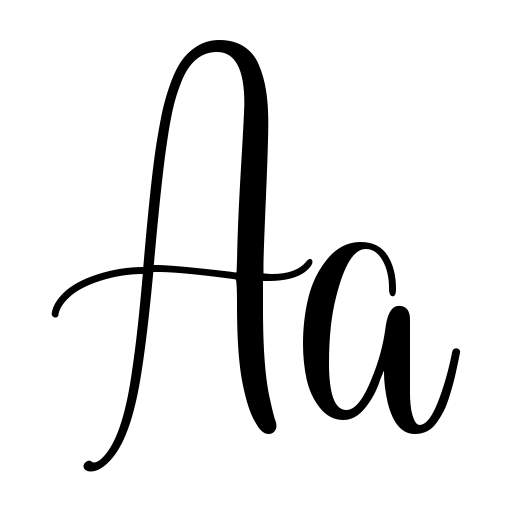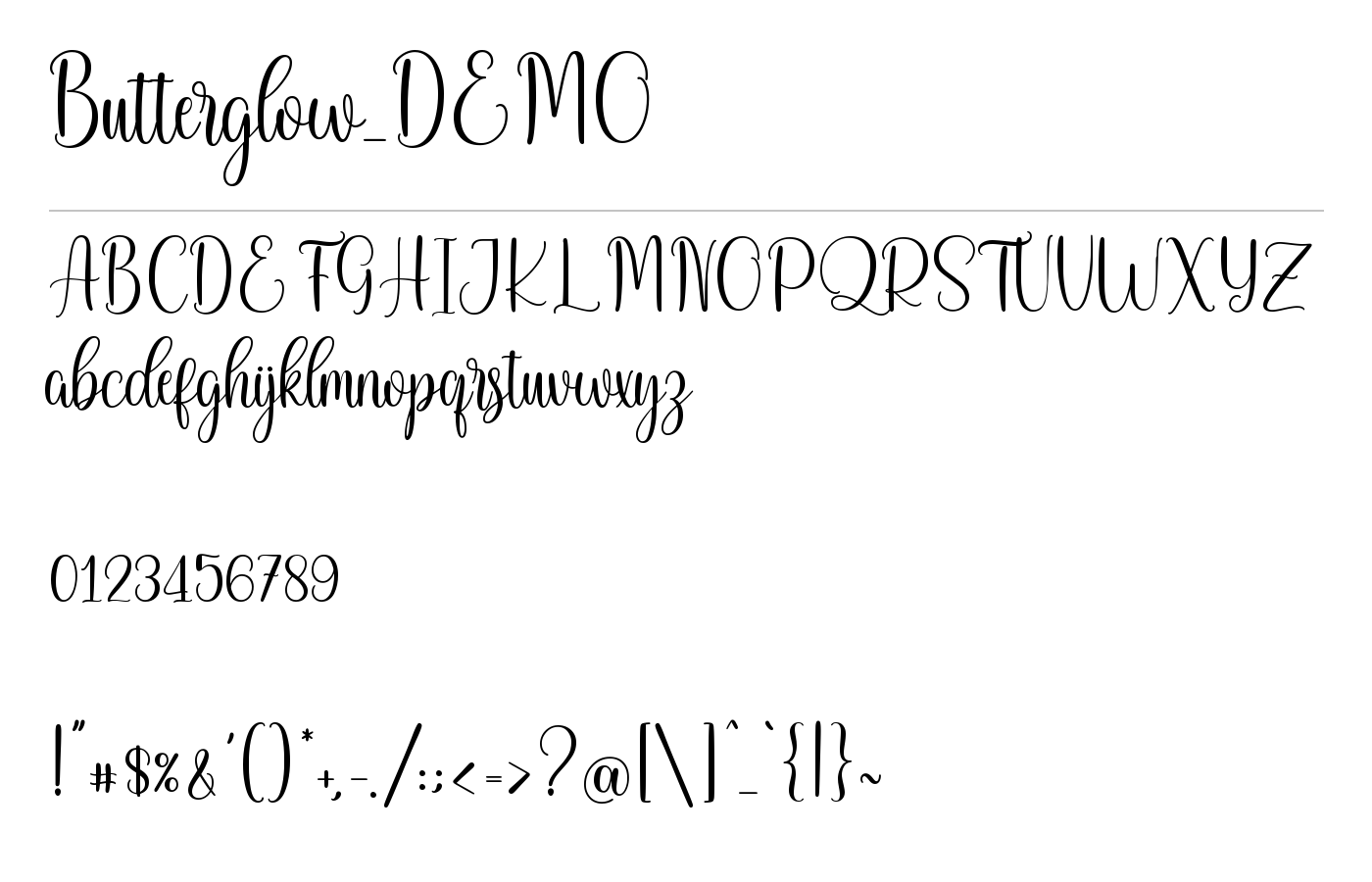
Butterglow_DEMO is a delicate, elegant script font with a charming, handwritten feel. Its tall, slender letterforms feature smooth curves and subtle flourish details, making it perfect for feminine branding, invitations, and stylish editorial accents. This font adds a graceful and refined touch to any design that aims for warmth and sophistication.
Butterglow_DEMO Font